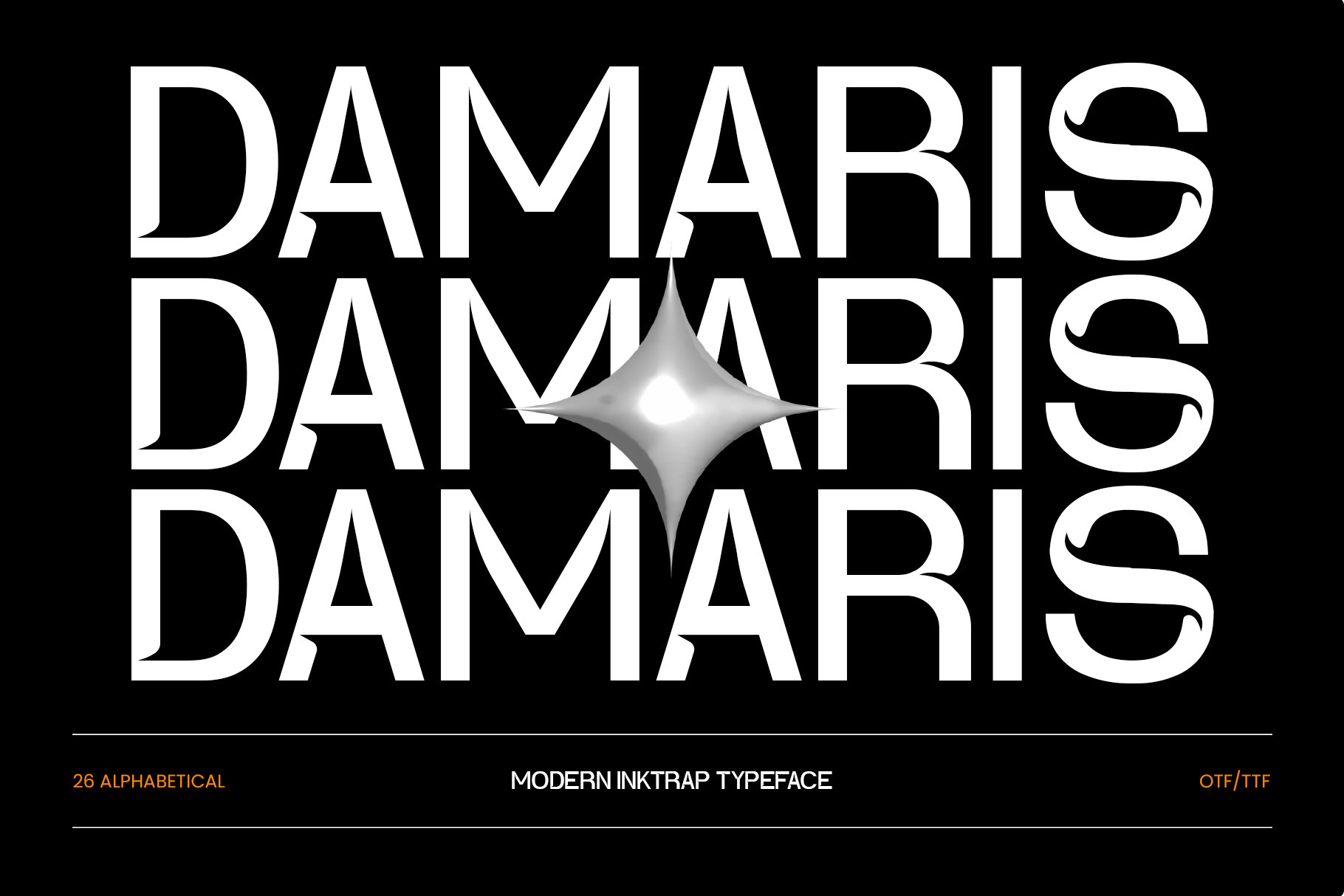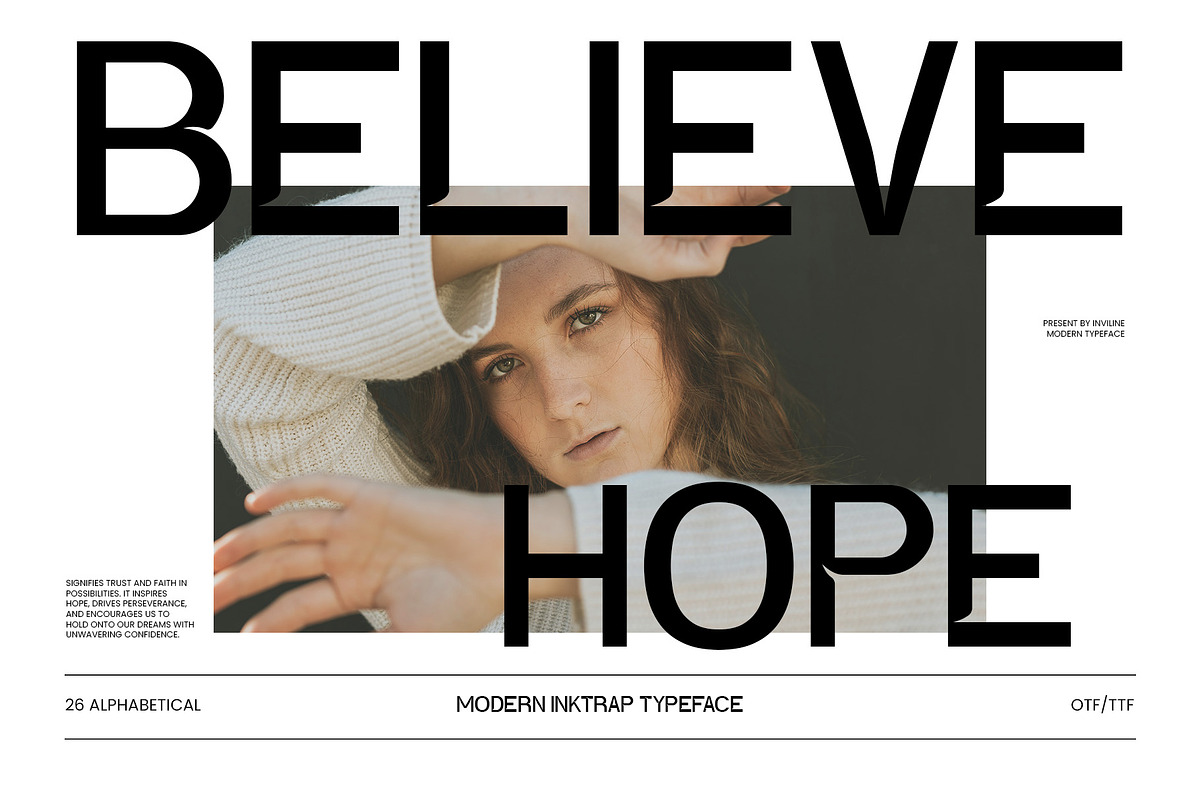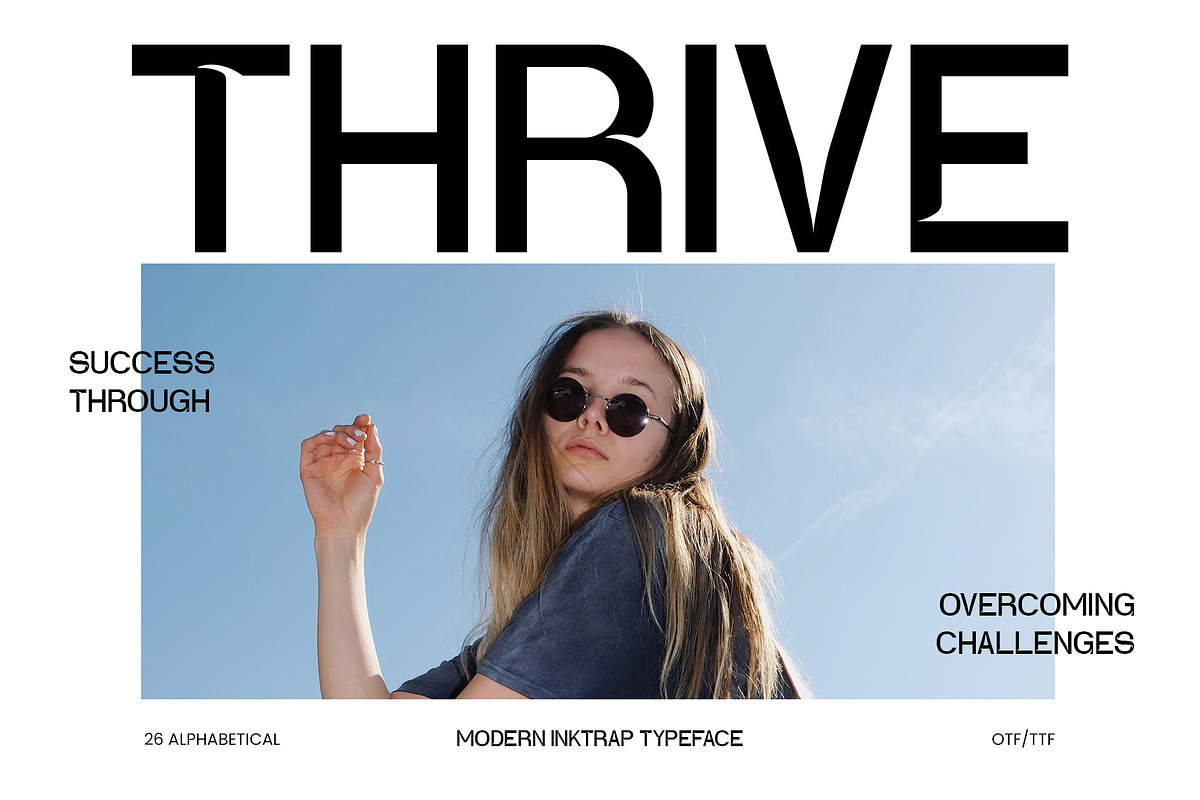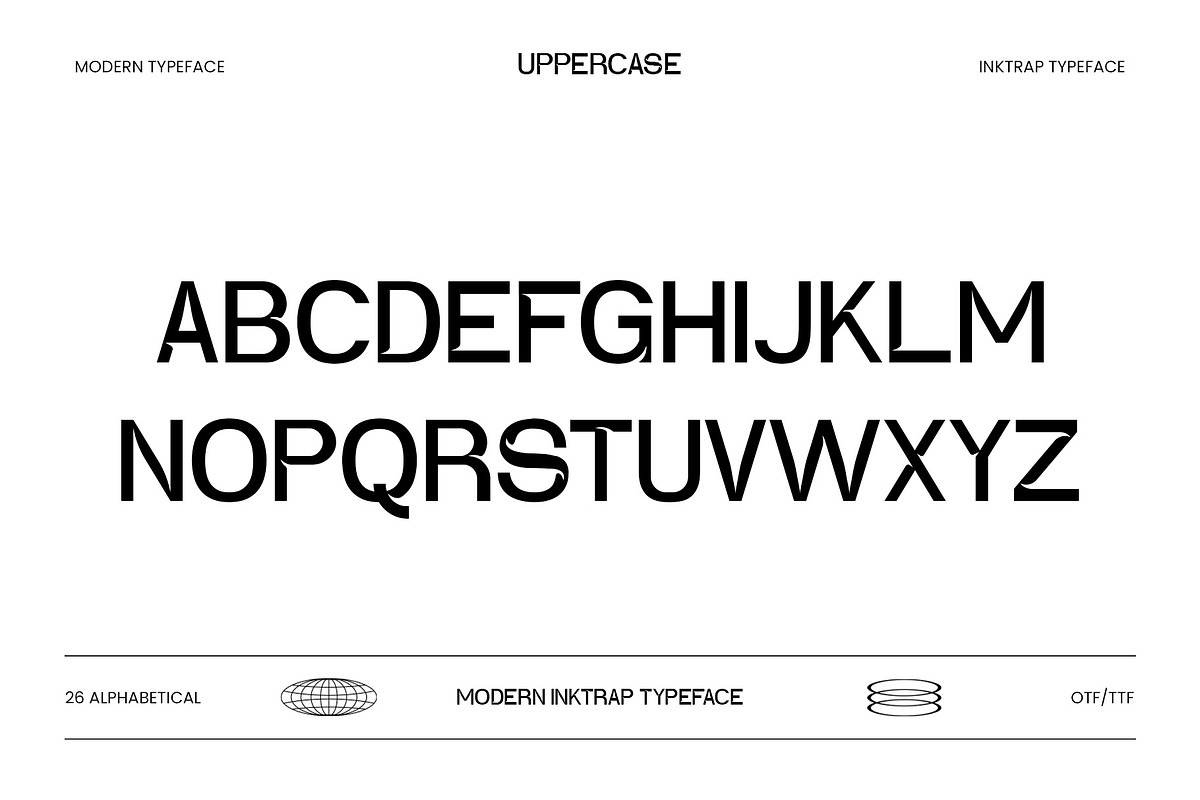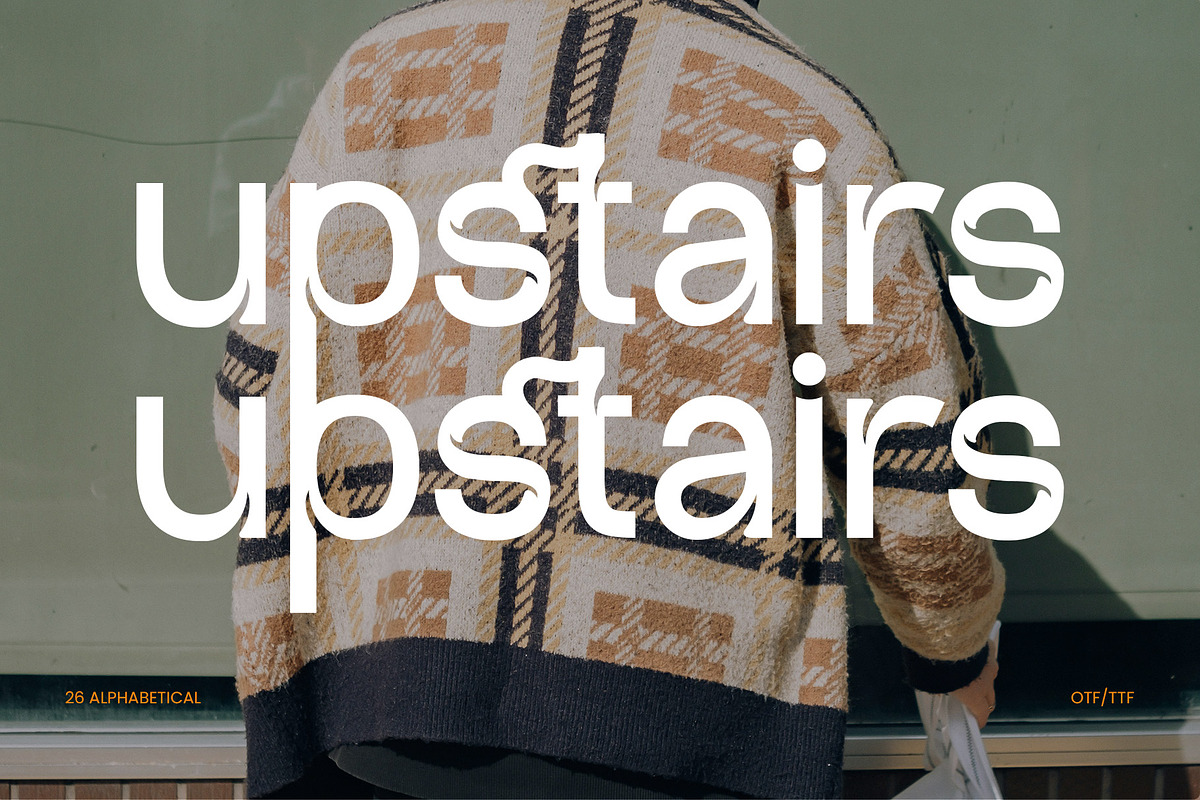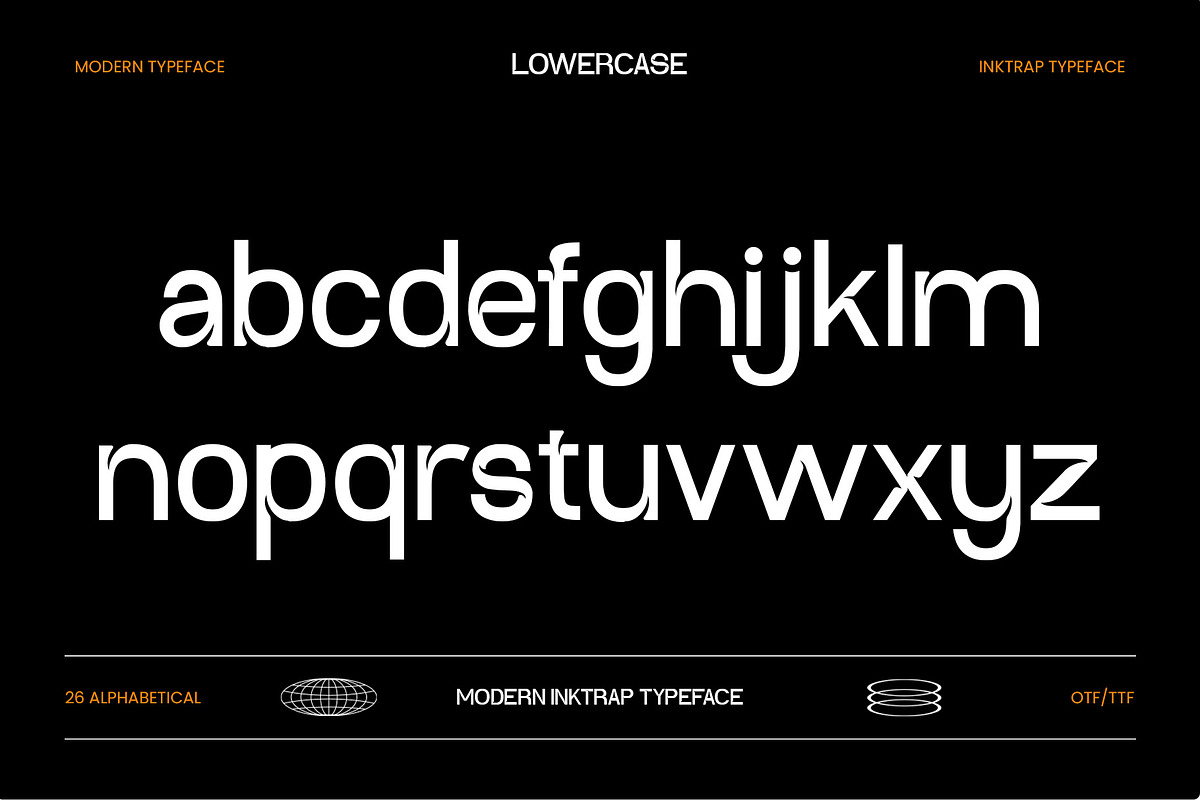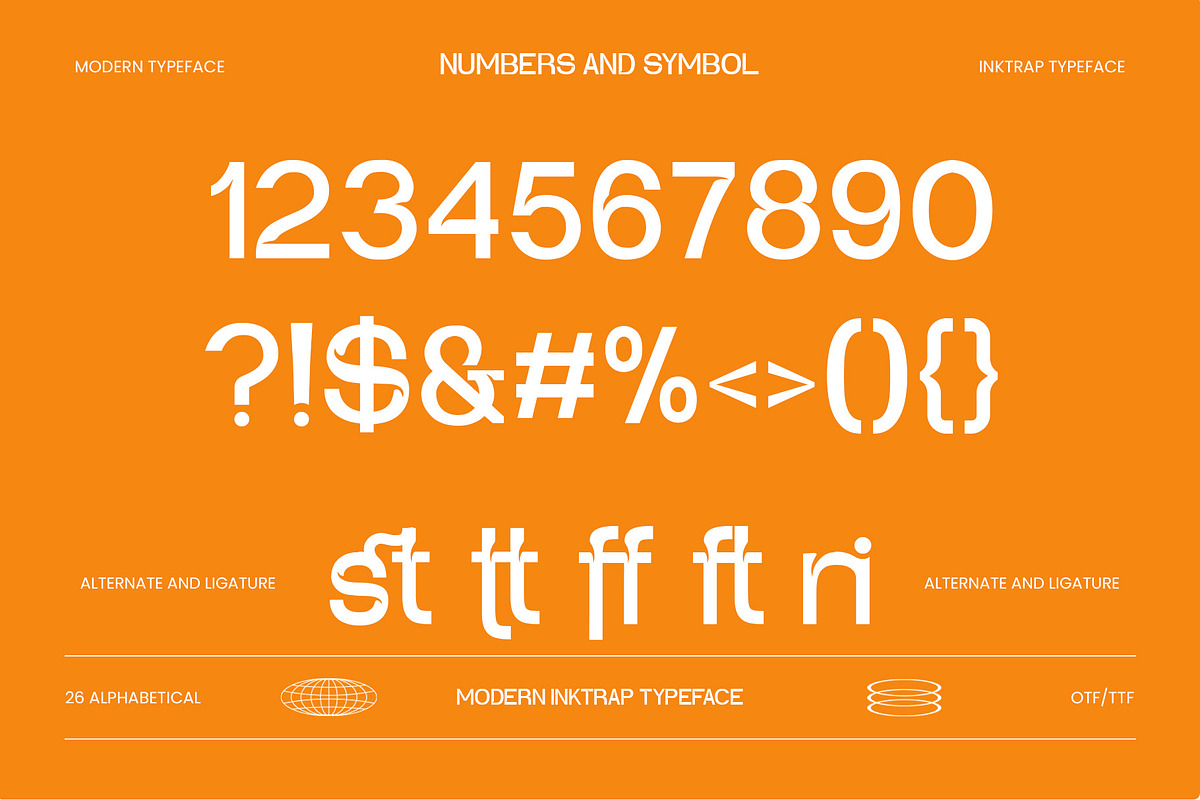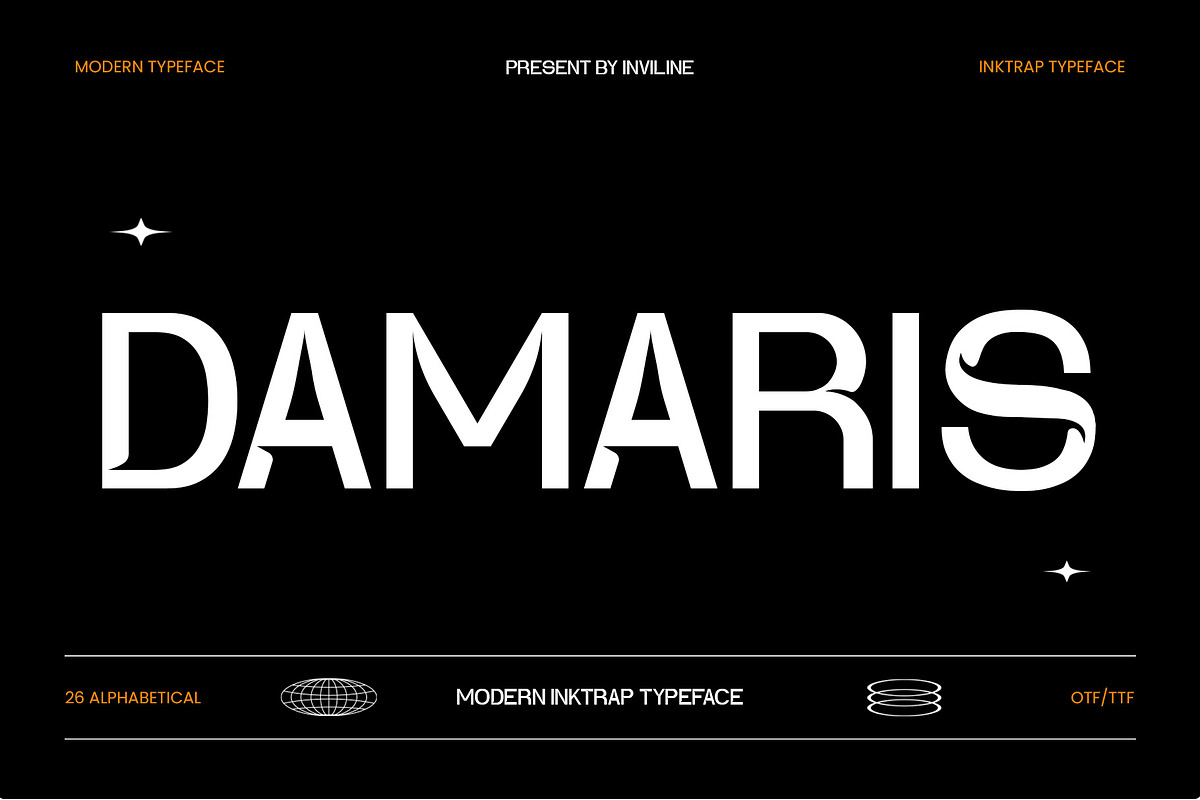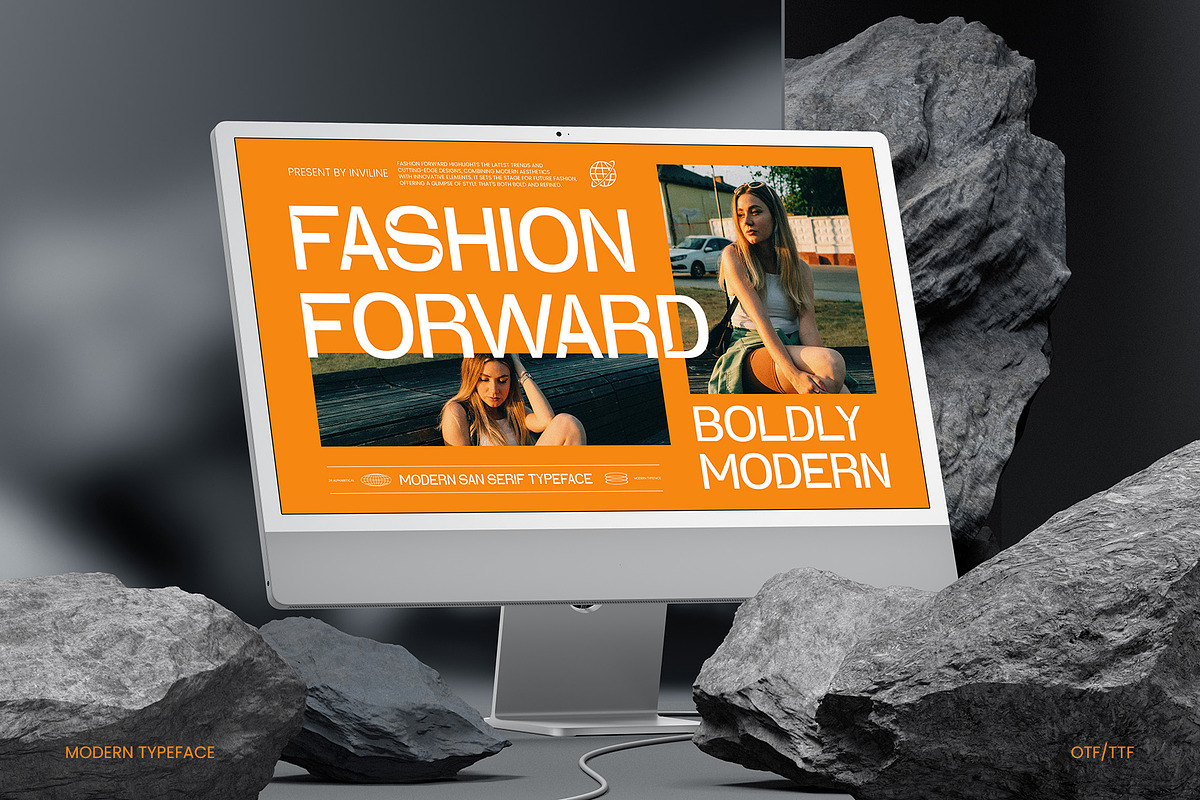
Damaris - Ink Trap Font
Damaris is a modern ink trap typeface built with clean proportions, bold geometric construction, and distinctive cut details. Its sharp internal notches give the letterforms a contemporary editorial personality while adding character without sacrificing readability.
Inspired by modernist typography, fashion editorials, Swiss-inspired layouts, and experimental graphic design, Damaris is designed for projects that need typography that feels sophisticated, structured, and visually distinctive.
Damaris combines a clean sans serif foundation with strategically placed ink trap details that create recognizable shapes and a strong graphic rhythm. Its uppercase characters feel bold and architectural, while the lowercase set offers a more restrained option for secondary typography.
The font is particularly effective for large headlines, logos, posters, magazine covers, packaging, campaigns, and minimalist branding systems.
Its monochrome-friendly construction also works beautifully with high-contrast photography, neutral layouts, metallic graphics, bold color blocking, and modern editorial compositions.
Ligature characters
Modern ink trap typography
Clean geometric construction
Sharp internal cut details
Contemporary editorial aesthetic
Strong uppercase display characters
Functional lowercase alphabet
Strong visual presence at medium and large sizes
Ideal for branding, editorial, logos, and posters
Works beautifully in minimalist layouts
Easy to pair with neutral grotesque or serif typefaces
Ligature examples visible in the preview: st, tt, ff, fi, rn
Use Damaris at medium or large sizes to highlight its distinctive ink trap details and geometric construction. It performs especially well for logos, headlines, poster titles, magazine typography, and short statements.
Pair it with a simple sans serif or clean serif typeface for captions and body text. Black and white layouts, bold color blocking, metallic effects, and minimalist photography work particularly well with its modern character.